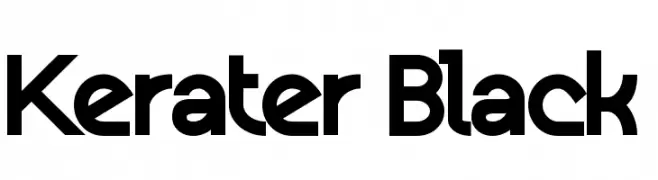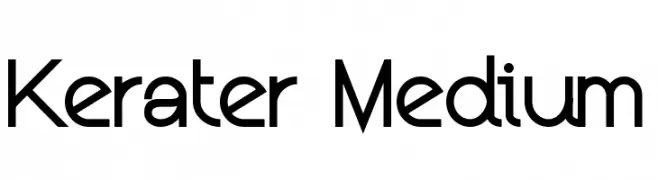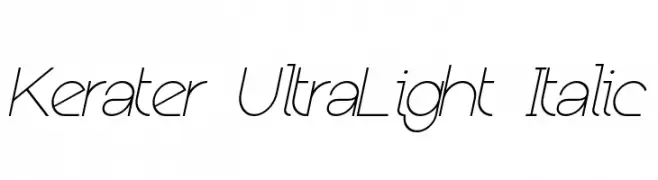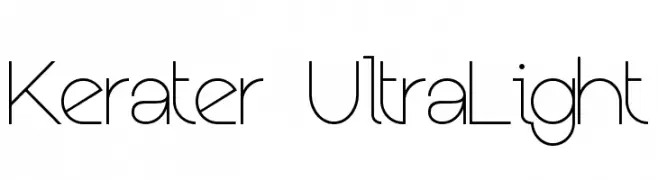
Kerater UltraLight Font
A modern, ultra-lightweight font with clean lines and a geometric structure.
Kerater Black Font
A bold, geometric font with a modern and commanding presence.
Kerater Medium Font
A modern, geometric font with consistent stroke width and clear readability.
Kerater UltraLight Italic Font
An ultra-light, italic font with a modern and elegant style.